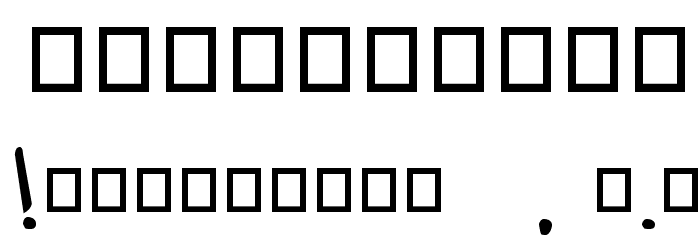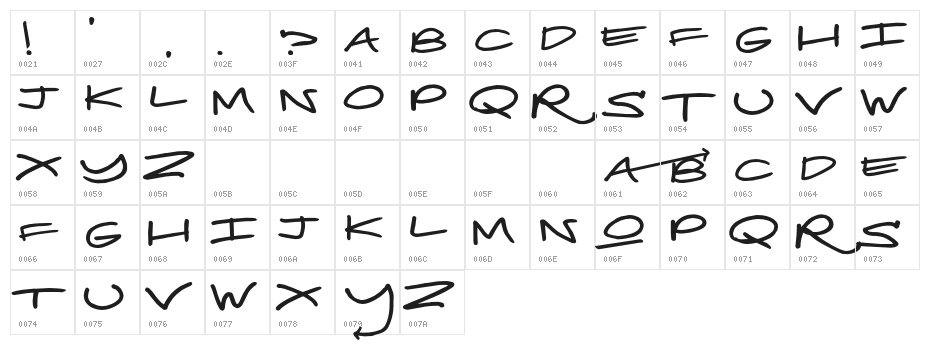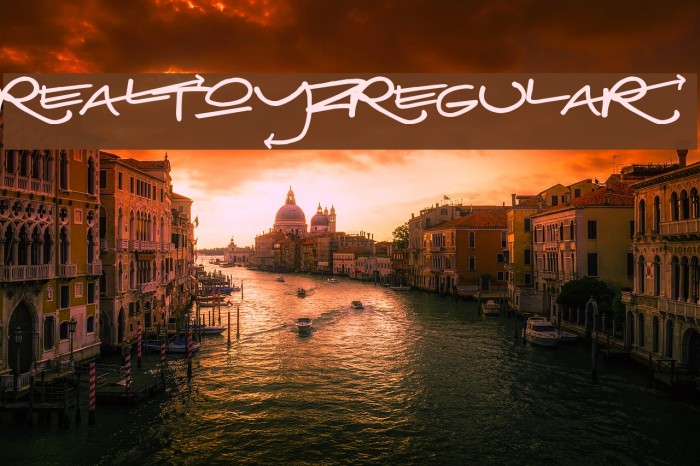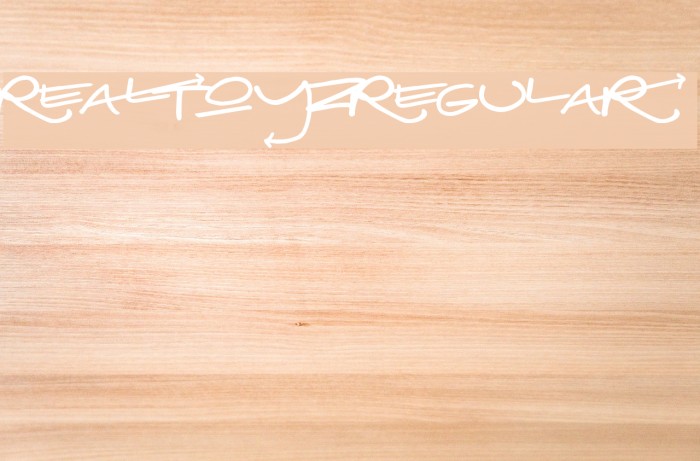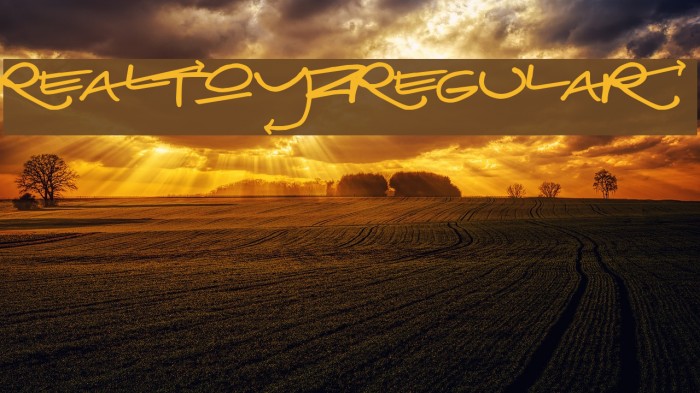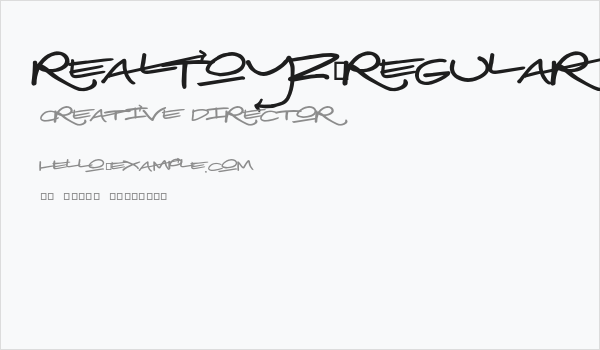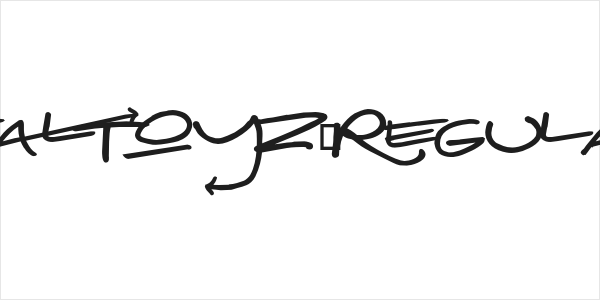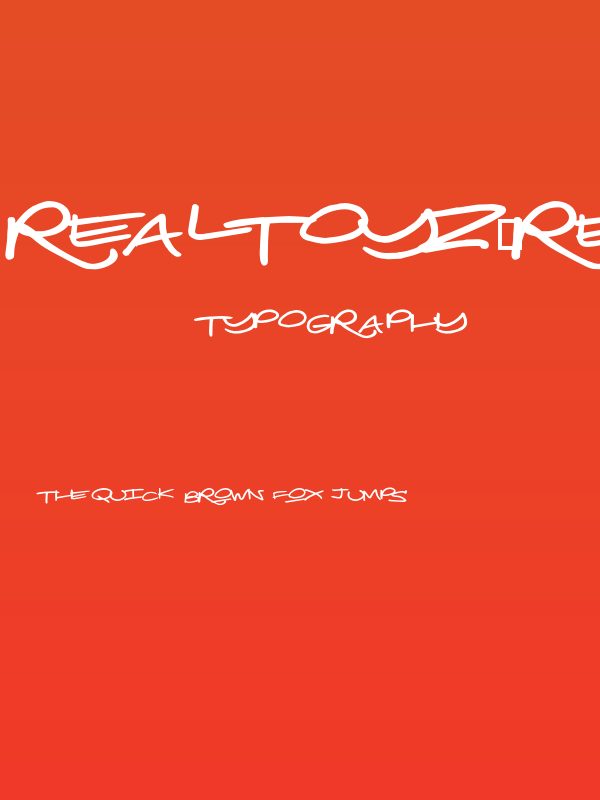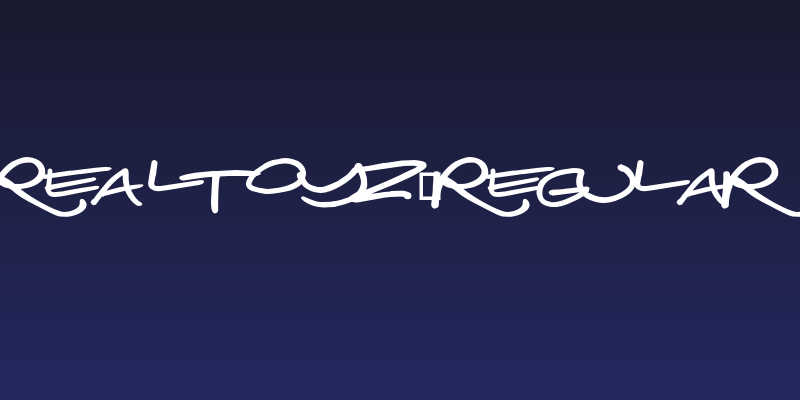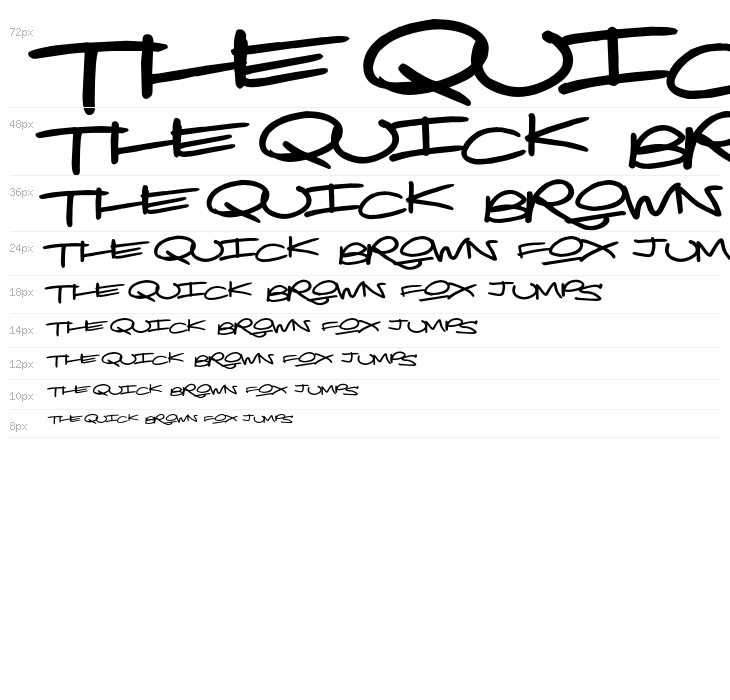
RealToyz-Regular Font
RealToyz-Regular Description
This font features a dynamic, handwritten style with a playful and energetic character. The letters are slightly slanted, giving a sense of motion and informality. The strokes are uneven, mimicking the natural flow of handwriting, which adds a personal touch. The uppercase and lowercase letters maintain a consistent style, with some letters having unique flourishes that enhance the overall aesthetic. The font lacks special characters and numbers, focusing primarily on alphabetic characters. Its casual and artistic appearance makes it suitable for creative projects.
| Overall Style | Casual, Artistic |
| Proposed Projects | Ideal for creative projects such as greeting cards, invitations, posters, and personal branding. |